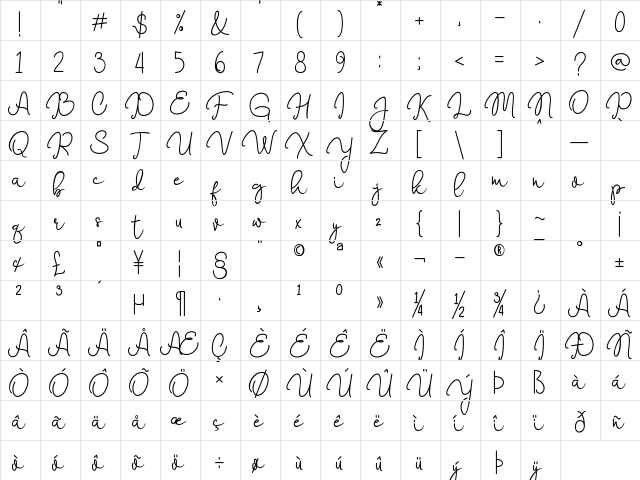
Marrisa Regular Font Preview
Marrisa Regular
Marrisa Regular Font Details
| Designer | Aldedesign 2019 |
Design Context for Marrisa Typeface
Marrisa is a composed and adaptable typeface that performs quietly and consistently across a wide range of design contexts.